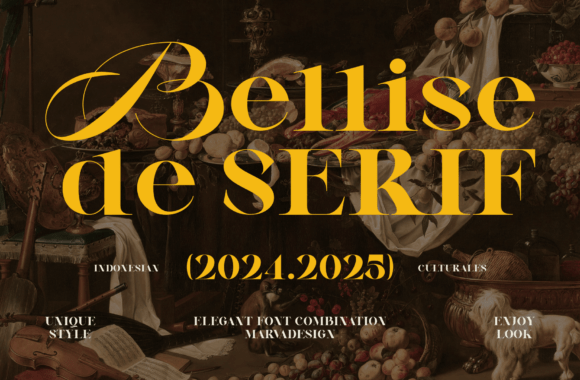
The Elegant Bellise Font: A Designer’s Dream Come True
A Perfect Blend of Serif Sophistication and Script Elegance
Bellise is a distinguished typeface that masterfully combines serif sophistication with the fluid grace of uppercase script. This unique fusion results in a font that is both bold and expressive, striking a perfect balance between structure and artistic flair. The serif elements provide a strong, classical foundation, while the uppercase script introduces an elegant, calligraphic touch that adds movement and personality.
An Honest Review: What I Love and What I Don’t
- ✅ Elegant and sophisticated design that’s perfect for luxury branding and high-end visual compositions
- ✅ High contrast strokes and refined ligatures that add a touch of elegance
- ✅ Perfect balance between structure and artistic flair
- ✅ Works well in a variety of design applications, from magazine covers to packaging
- ⚠️ Limited use in body text due to its elegant, yet bold nature
- ⚠️ May not work well in smaller font sizes due to its intricate details
The Designer Inspiration Behind Bellise
The story behind Bellise’s creation is one of passion and dedication. According to its designers, Bellise was inspired by the classic serif fonts of the past, with a modern twist. The goal was to create a font that would be both elegant and sophisticated, yet bold and expressive. The designers spent countless hours perfecting the font’s intricate details, from the high contrast strokes to the refined ligatures.
A: Bellise is best used for luxury branding, editorial design, and high-end visual compositions. Its elegant and sophisticated design makes it perfect for projects that require a touch of luxury and refinement.
A: While Bellise is a beautiful font, it’s not ideal for body text due to its elegant, yet bold nature. It’s best used for headlines, titles, and other display text.
A: Yes, Bellise is a versatile font that can be used in a variety of design applications, from magazine covers to packaging. Its elegant and refined design makes it perfect for projects that require a touch of sophistication.